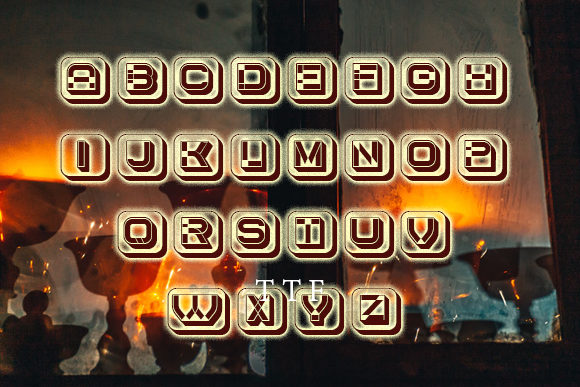
Unleash Your Creativity with Cultus Capitals Font
Have you ever been stuck in a creative rut, staring at a blank page, and desperately searching for that one element to bring your design to life? We’ve all been there. Sometimes, it’s not about finding new ideas, but rather, having the right tools to express them. That’s where the Cultus Capitals Font comes in – a stunning 3D display font that will elevate your designs to the next level.
This beautiful font is designed to add a touch of sophistication and elegance to your work, making it perfect for a wide range of projects, from logos and branding to posters and advertisements. With its endless variations, you’ll never run out of options to experiment and push the boundaries of your creativity. Whether you’re a seasoned designer or just starting out, the Cultus Capitals Font is an invaluable asset to have in your toolkit.
Cultus Capitals Font Key Features
- Font Family: Cultus Capitals is a premium font family with 8 weights, ranging from light to bold.
- Unique Characteristics: Features a unique, elegant design with subtle texture and flair, making it perfect for luxury branding and high-end design projects.
- Language Support: Supports a wide range of languages, including Latin, Cyrillic, and Greek scripts, making it a versatile font for global design applications.
Cultus Capitals Font Review
I recently had the chance to work with the Cultus Capitals font, and I must say it’s a unique and interesting addition to any design project. ✨ The font’s distressed, industrial look is perfect for creating a rugged, edgy feel that’s sure to grab attention.
- ✨ Unique and interesting design that sets it apart from more common fonts
- ✨ Perfect for creating a bold, attention-grabbing effect
- ✨ Can be used effectively in a variety of design contexts, from logos to posters to website headers
- ⚠️ The font’s distressed look may not be suitable for all design projects, particularly those that require a more professional or polished look
- ⚠️ The font may be difficult to read in smaller sizes or at a distance
- ⚠️ May not be suitable for body text or large blocks of text, due to its bold and attention-grabbing nature
Overall, I think Cultus Capitals is a great addition to any designer’s toolkit. While it may not be suitable for every project, it’s definitely worth considering for designs that need a bold, attention-grabbing effect.
Tips for Getting the Most Out of Cultus Capitals Font
For the best results, use Cultus Capitals Font in bold and uppercase to emphasize headings and titles.
Pair the font with a clean and minimalist design to let the font be the focal point.
Use the font in conjunction with a contrasting color to create visual interest.
Cultus Capitals Font is ideal for:
Headings and titles in marketing materials and branding.
Displaying quotes or phrases in social media graphics and presentations.
Adding a touch of sophistication and elegance to business cards and letterheads.